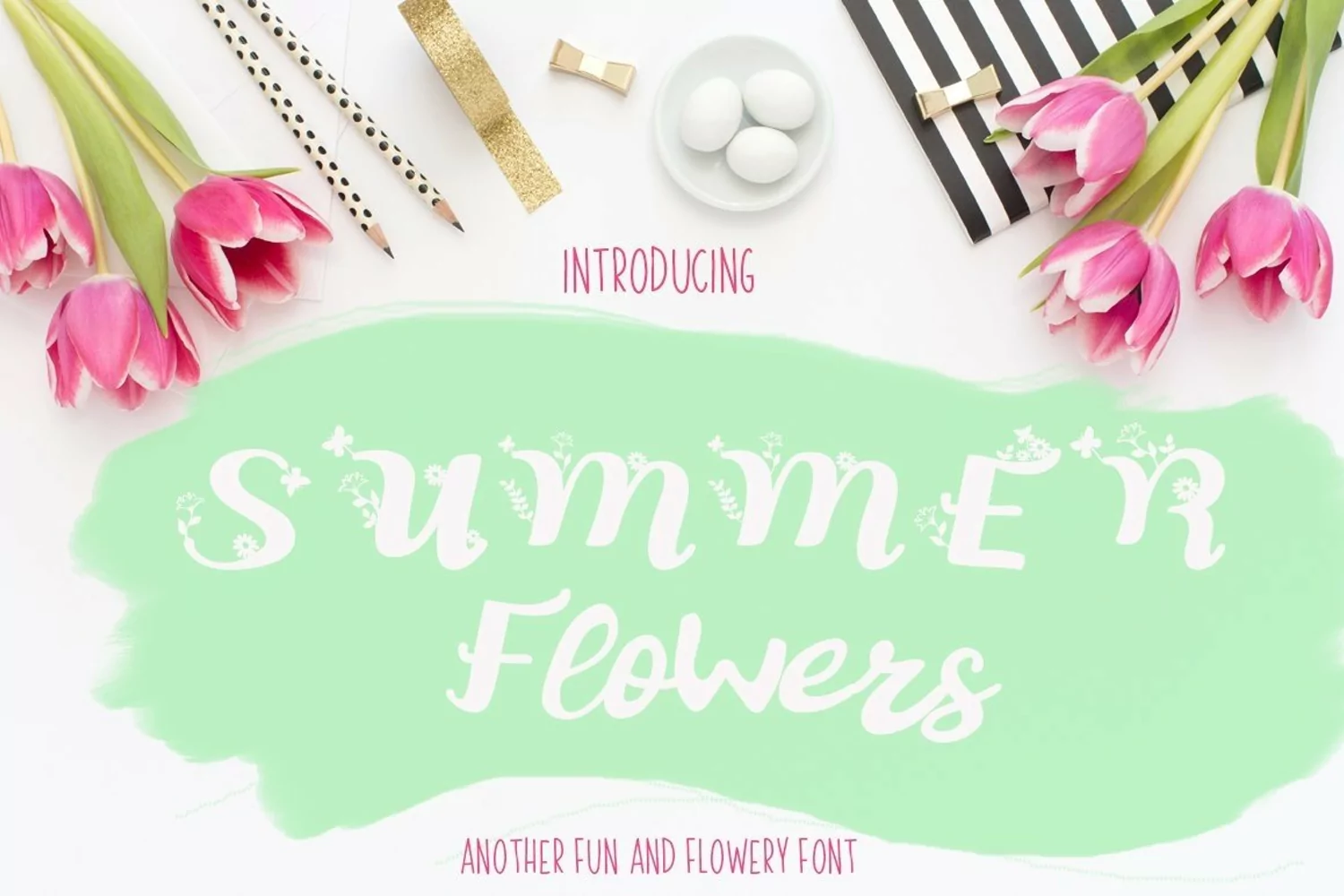
Web Font Summer Flowers Fun and Flowery Font
Summer Flowers is a handlettered font for crafters and not
only. With a dancing baseline and unique look, it will help you create
beautiful projects in minutes! The download has 2 fonts: Letters of Summer and
Summer Flowers. The font has all uppercase and lowercase letters, numbers 0-9,
extended punctuation and international
characters.